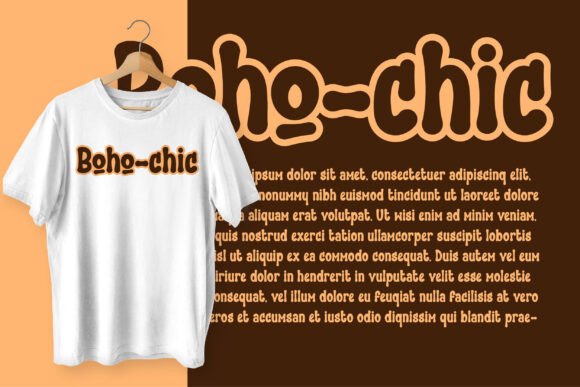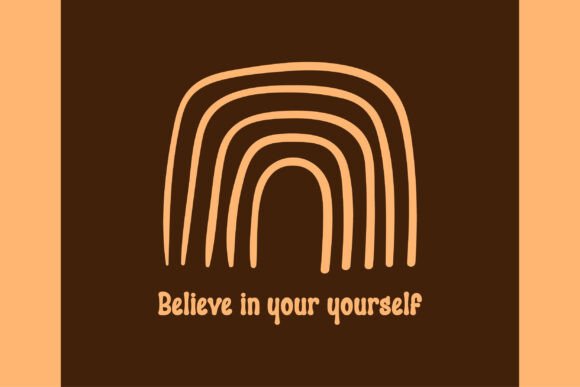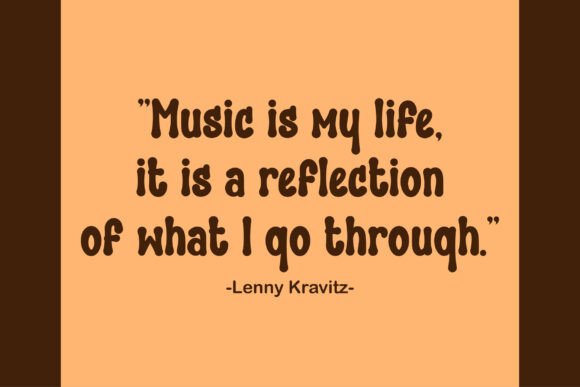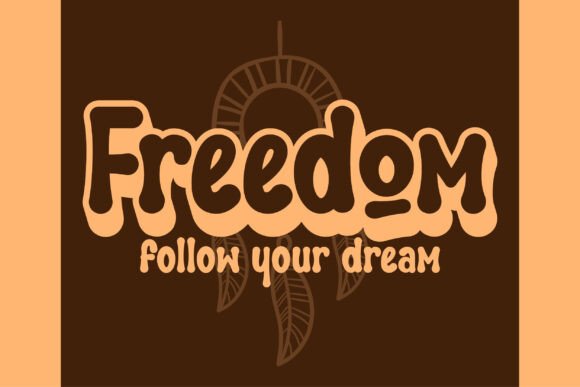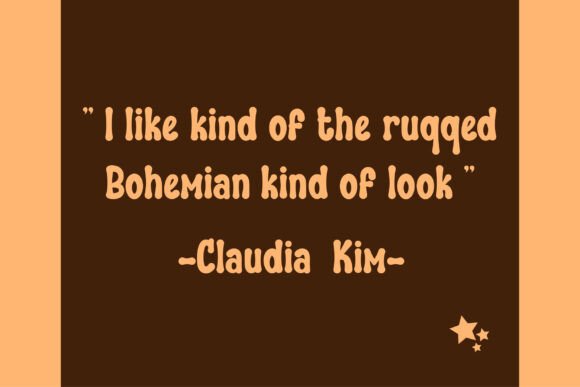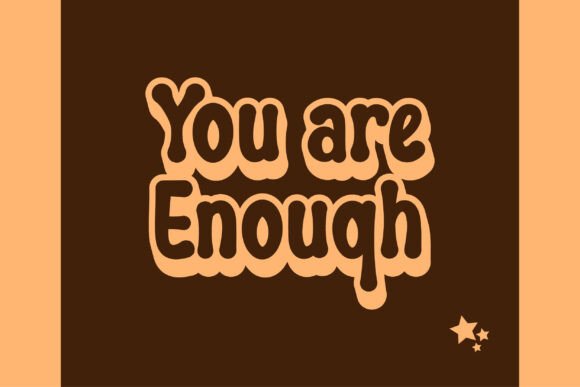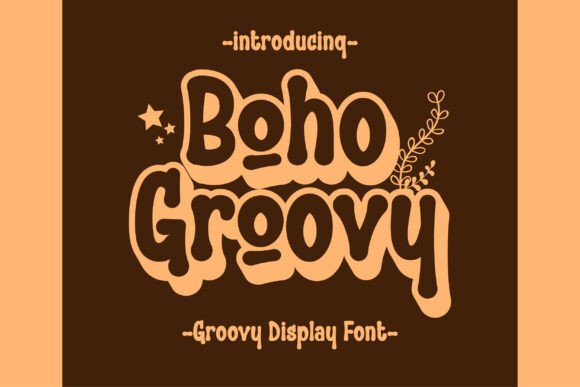
Introducing Boho Groovy Font: The Ultimate Display Font for Creative Minds
Are you tired of using the same old fonts in your designs? Do you want to add a special touch to your creative projects? Look no further than Boho Groovy Font, a cute and unique groovy font that’s sure to take your designs to the next level. In this article, we’ll dive into the world of Boho Groovy Font and explore its features, benefits, and uses.
What is Boho Groovy Font?
Boho Groovy Font is a display font that’s been expertly designed to be a true favorite among designers and crafters. Its unique and playful style makes it perfect for adding a touch of personality to any design idea you can think of. Whether you’re working on a logo, branding project, or social media graphics, Boho Groovy Font is sure to make your designs stand out.
Features of Boho Groovy Font
So, what makes Boho Groovy Font so special? Here are just a few of its key features:
- Unique and Playful Style: Boho Groovy Font has a one-of-a-kind design that’s sure to grab attention. Its playful and carefree style makes it perfect for designs that need a little extra personality.
- High-Quality Design: This font has been expertly designed to ensure that it’s clear and legible, even at small sizes.
- Versatile: Boho Groovy Font can be used for a wide range of design projects, from logos and branding to social media graphics and more.
Benefits of Using Boho Groovy Font
So, why should you choose Boho Groovy Font for your designs? Here are just a few of the benefits of using this amazing font:
- Adds Personality to Your Designs: Boho Groovy Font is the perfect way to add a touch of personality to your designs. Its unique style ensures that your designs will stand out from the crowd.
- Increases Creativity: With Boho Groovy Font, you’ll be able to take your creative ideas to the next level. Its playful style is sure to inspire you to think outside the box.
- Perfect for Branding and Marketing: This font is perfect for branding and marketing projects, as it’s sure to grab attention and leave a lasting impression.
- Great for Social Media Graphics: Boho Groovy Font is also perfect for social media graphics, as it’s sure to make your posts stand out in a crowded feed.
Uses of Boho Groovy Font
So, what can you use Boho Groovy Font for? The possibilities are endless! Here are just a few ideas to get you started:
- Logos and Branding: Use Boho Groovy Font to create a unique and memorable logo for your business or brand.
- Social Media Graphics: Add a touch of personality to your social media posts with Boho Groovy Font.
- Invitations and Party Decor: This font is perfect for creating invitations, party decor, and other celebratory materials.
- Digital Art and Illustrations: Use Boho Groovy Font to add a touch of personality to your digital art and illustrations.
Tips for Using Boho Groovy Font
Here are a few tips for getting the most out of Boho Groovy Font:
- Experiment with Different Sizes and Colors: Don’t be afraid to experiment with different sizes and colors to find the perfect look for your design.
- Pair with Other Fonts: Boho Groovy Font pairs well with a wide range of other fonts, so don’t be afraid to get creative and try out different combinations.
- Use it Sparingly: While Boho Groovy Font is a beautiful font, it’s best used sparingly. Use it to add a touch of personality to your designs, but avoid overusing it.